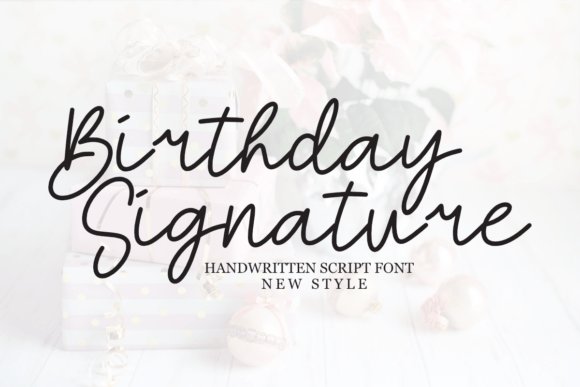
Adding a Personal Touch to Your Designs
Have you ever felt like your designs were missing that special something? Maybe it’s the perfect font, the ideal color palette, or a dash of whimsy that sets your work apart. For me, it’s often the little details that make all the difference – like the perfect handwritten signature.
Introducing the Birthday Signature Font, a sweet and cursive handwritten font designed to add a touch of joy and romance to your designs. This gentle font is perfect for branding, logos, wedding invitations, greeting cards, and any project where you want to convey a sense of elegance and sophistication. As a designer, you know how valuable it is to have the right tools at your fingertips, and the Birthday Signature Font is sure to become a favorite in your toolkit.
Birthday Signature Font Key Features
- Font Style: A unique, cursive font designed specifically for birthdays and special occasions.
- Font Size: Supports a range of font sizes, from 10pt to 100pt, making it suitable for various applications, including greeting cards, invitations, and digital signatures.
- Unique Characteristics: Includes special characters and glyphs for birthdays, such as candles, balloons, and confetti, adding a personal touch to signatures and messages.
Birthday Signature Font Review
I recently had the chance to work with the Birthday Signature Font, and I must say, it’s a unique addition to any project. ✨ The font’s playful and cursive style is perfect for creating a festive atmosphere, especially for birthday-themed designs. The font is well-suited for invitations, greeting cards, and other celebratory materials.
The Birthday Signature Font is available in several styles, including uppercase and lowercase letters, numbers, and special characters. ✨ The font’s wide range of weights and styles makes it easy to find the perfect fit for any design. Additionally, the font is highly customizable, allowing designers to adjust the spacing, size, and color to suit their needs.
- ⚠️ The font’s size can be inconsistent when used in smaller sizes, leading to potential readability issues.
- ⚠️ The font may not be suitable for formal or professional designs, as it can come across as too casual or playful.
- ⚠️ Some characters, such as the ‘g’ and ‘q’, can be difficult to read in certain contexts.
Overall, the Birthday Signature Font is a fun and creative option for designers working on birthday-themed projects. While it may have some limitations, the font’s unique style and high level of customization make it a valuable addition to any design toolbox.
Birthday Signature Font: A Practical Application Guide
Experiment with different font sizes, colors, and styles to create a unique look. Use the font in combination with other design elements, such as graphics and images, to enhance the overall design.
The Birthday Signature Font is commonly used for birthday invitations, party decorations, and social media graphics. You can also use it to create personalized birthday cards, photo albums, and other paper crafts.
Pacifico is a beautiful script font that is reminiscent of the Pacific coast. It’s perfect for creating beachy, laid-back signature styles that are perfect for summer designs and tropical themes.
Compared to Birthday Signature Font, Pacifico has a more relaxed and casual feel, making it ideal for designs that require a carefree vibe. It’s also more suitable for use in outdoor and recreational designs.
Q: Can I customize the Birthday Signature Font to fit my specific design needs?
Yes, the Birthday Signature Font is fully editable in design software. You can adjust the font size, color, and style to fit your specific design needs. Additionally, you can also use the font’s built-in features, such as ligatures and swashes, to add extra flair to your designs.